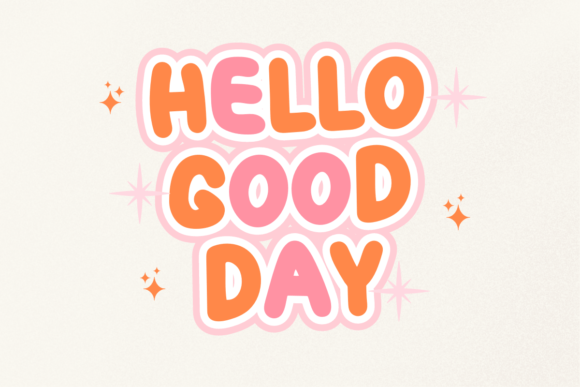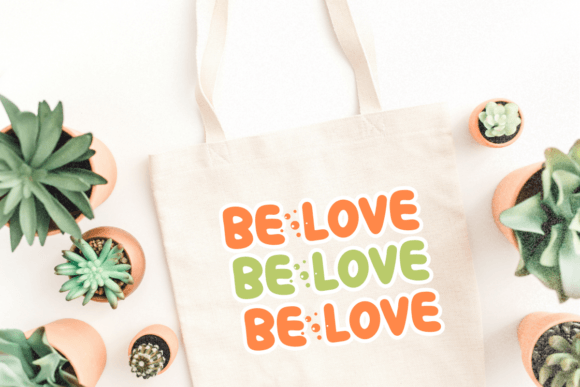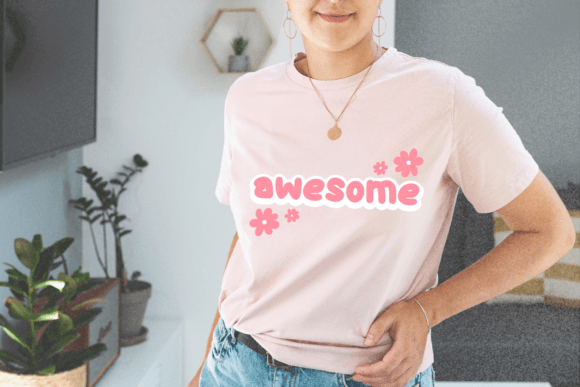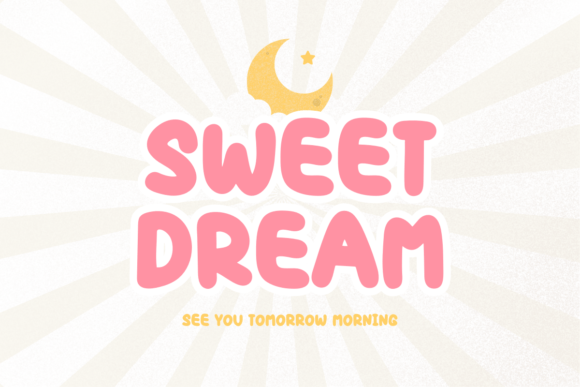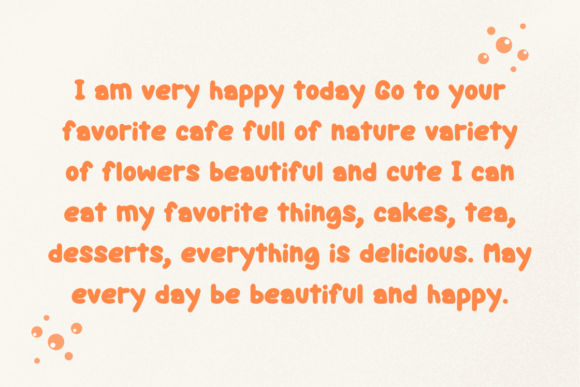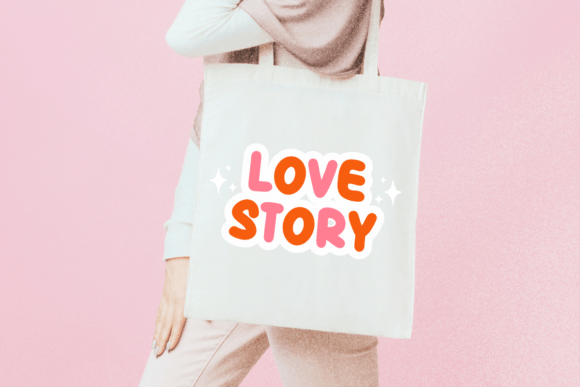
Bubble Waffle Font: The Cute and Quirky Display Font You Need!
Are you tired of using the same old fonts in your designs? Do you want to add a touch of whimsy and fun to your creative projects? Look no further than the Bubble Waffle font! This adorable display font is sure to bring a smile to your face and make your designs stand out from the crowd.
What is Bubble Waffle Font?
Bubble Waffle font is a cute and quirky display font that is perfect for adding a playful touch to your designs. With its unique and fun design, this font is sure to capture the attention of your audience and leave a lasting impression. Whether you’re a designer, crafter, or DIY enthusiast, Bubble Waffle font is a must-have in your font collection.
Characteristics of Bubble Waffle Font
So, what makes Bubble Waffle font so special? Here are some of its key characteristics:
- Cute and Quirky Design: Bubble Waffle font has a unique and playful design that is sure to add a touch of fun to your designs.
- Display Font: This font is perfect for headlines, titles, and other display text, making it ideal for posters, flyers, and other marketing materials.
- High-Quality Design: Bubble Waffle font is designed with high-quality graphics, ensuring that it looks great in any size or resolution.
- Easy to Read: Despite its playful design, Bubble Waffle font is easy to read, making it perfect for use in a variety of creative projects.
How to Use Bubble Waffle Font
So, how can you use Bubble Waffle font in your designs? Here are a few ideas to get you started:
- Posters and Flyers: Use Bubble Waffle font to create eye-catching posters and flyers that are sure to grab attention.
- Social Media Graphics: Add a playful touch to your social media graphics with Bubble Waffle font.
- Crafting and DIY Projects: Use Bubble Waffle font to add a personal touch to your crafting and DIY projects, such as signs, banners, and other decorative items.
- Branding and Packaging: Use Bubble Waffle font to create unique and memorable branding and packaging materials.
Why Choose Bubble Waffle Font?
So, why should you choose Bubble Waffle font for your designs? Here are a few reasons:
- Unique Design: Bubble Waffle font has a unique and playful design that is sure to make your designs stand out.
- High-Quality Graphics: Bubble Waffle font is designed with high-quality graphics, ensuring that it looks great in any size or resolution.
In conclusion, Bubble Waffle font is a cute and quirky display font that is perfect for adding a playful touch to your designs. With its unique design, high-quality graphics, and ease of use, this font is sure to become a favorite in your font collection. So why wait? Download Bubble Waffle font today and start creating fun and engaging designs that are sure to capture the attention of your audience!
Whether you’re a designer, crafter, or DIY enthusiast, Bubble Waffle font is a must-have font that is sure to bring a smile to your face and make your designs stand out. So go ahead, get creative, and have fun with Bubble Waffle font!